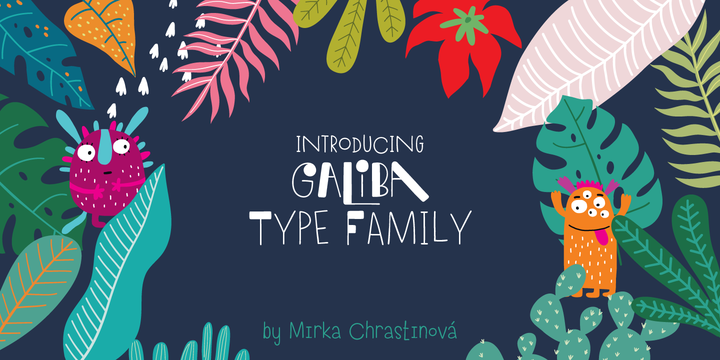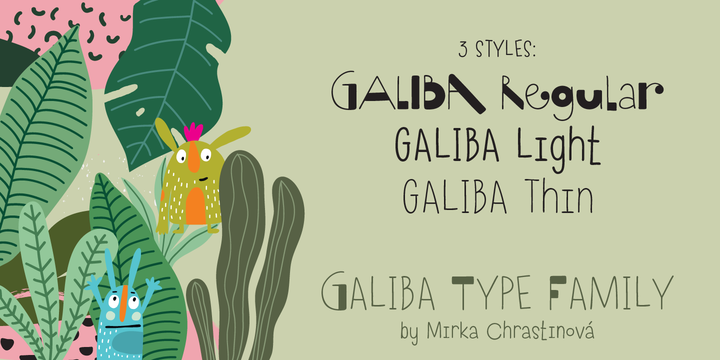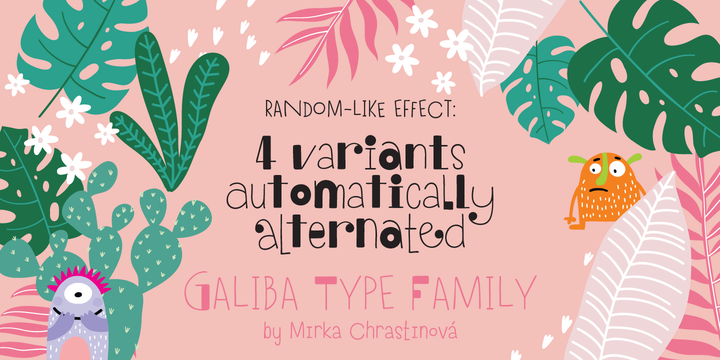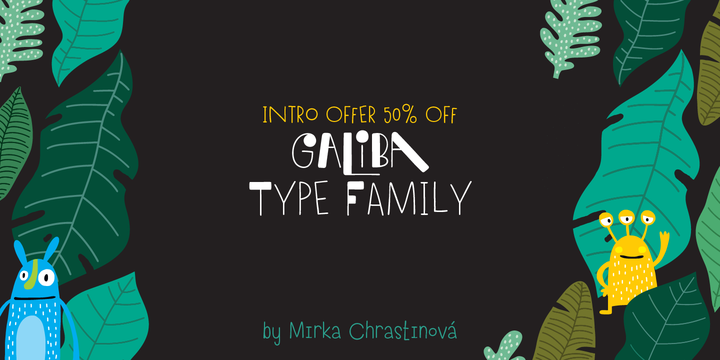
Galiba Font Family
Give your voice an eye-catching hand-drawn look thanks to this playful font family. You’ll get three styles, along with OpenType features including alternates, ligatures and stylistic sets.
Galiba Regular works very well with his small brothers Light and Thin. In addition Galiba Light can be used at smaller size along with the other styles to keep the same line thickness